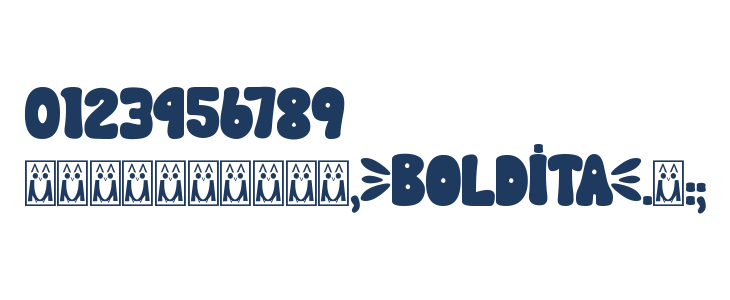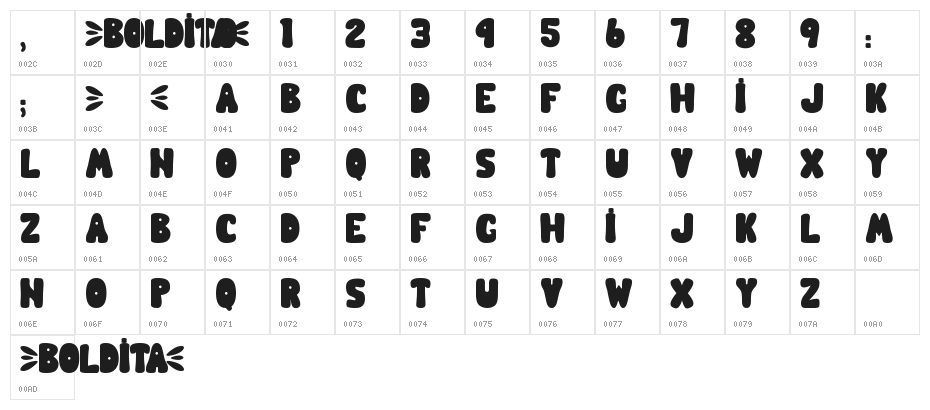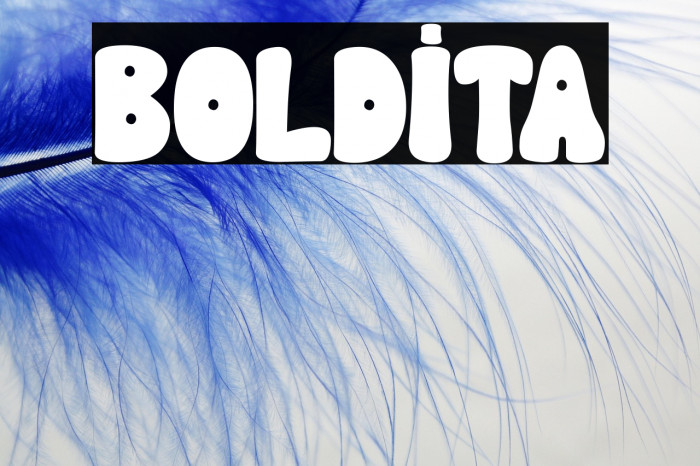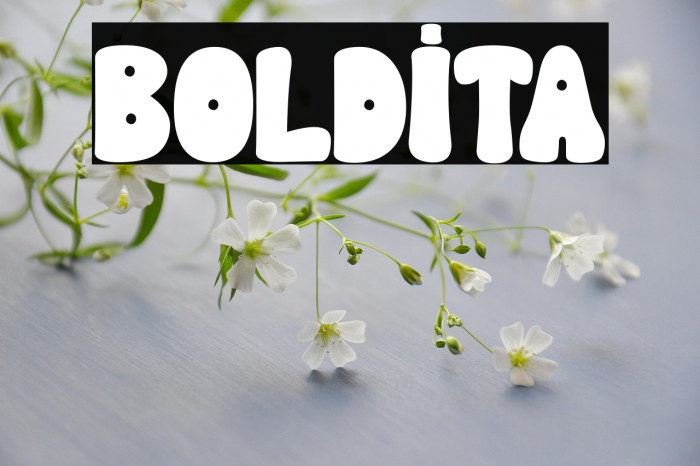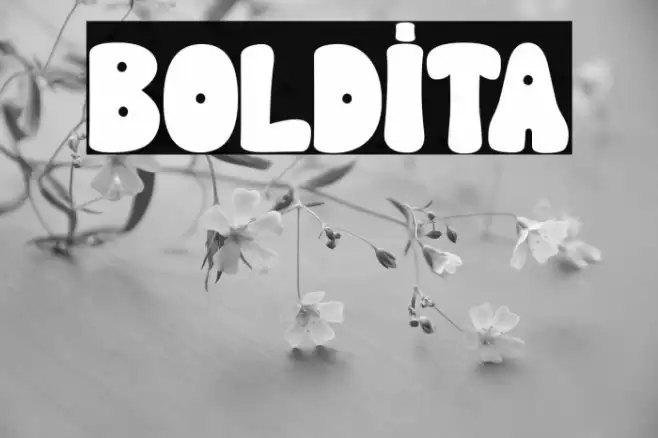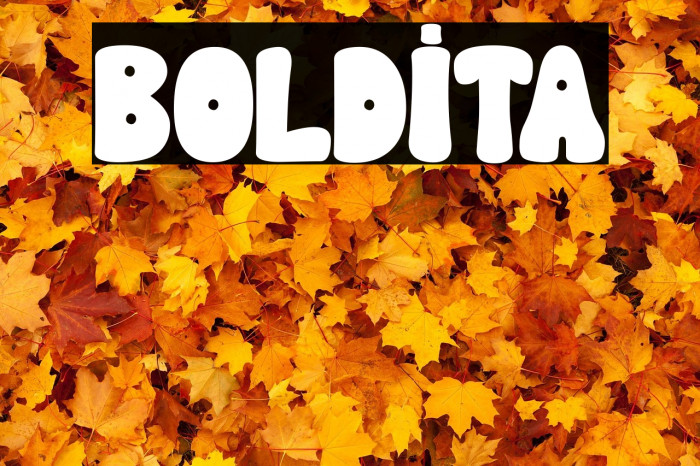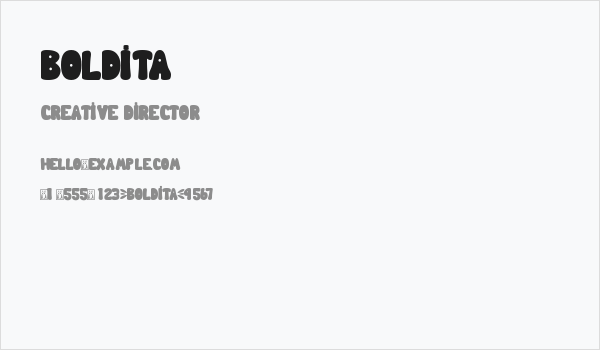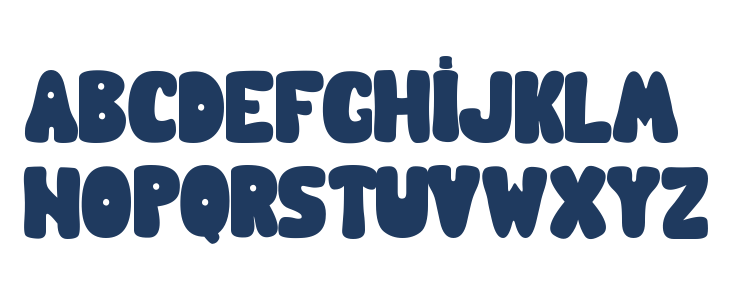
BOLDITA Font
BOLDITA Description
This font features a bold and playful design, characterized by its thick, rounded letterforms that convey a sense of fun and energy. The letters are uniformly bold, with a consistent stroke width that gives them a strong presence. The rounded edges and bubbly appearance make it approachable and friendly, suitable for projects that aim to capture attention with a lively and informal tone. The font includes both uppercase and lowercase letters, as well as numbers and a selection of special characters, all maintaining the same whimsical style.
| Proposed Projects | Ideal for children's books, playful branding, posters, and social media graphics. |